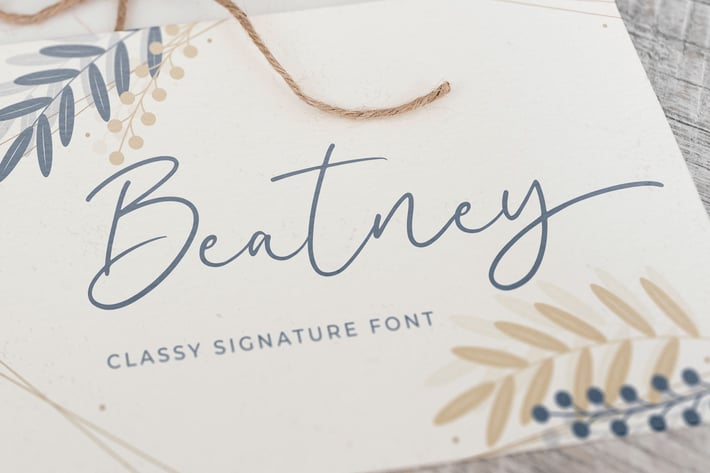
Beatney a Classy Signature Font
Introducing of our new product the name is Signatria a Chic Letter Font. Signatria inspired by signature style this font is a fun theme very good for display, tshirt design, craft, quote sign, logotype and etc